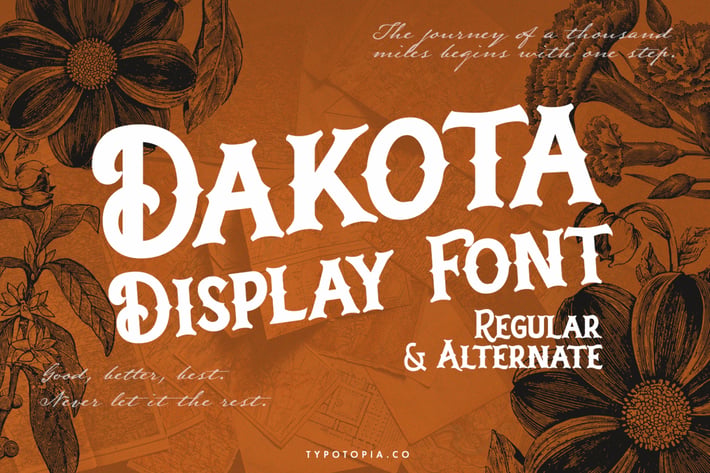
Dakota Display Font
Introducing Dakota Display Font an Incredibly Unique and Interesting Display Font for Your Designs. This perfect for the purposes of designing templates, brochures, videos, advertising branding, logos and more.
+ Multilingual Support